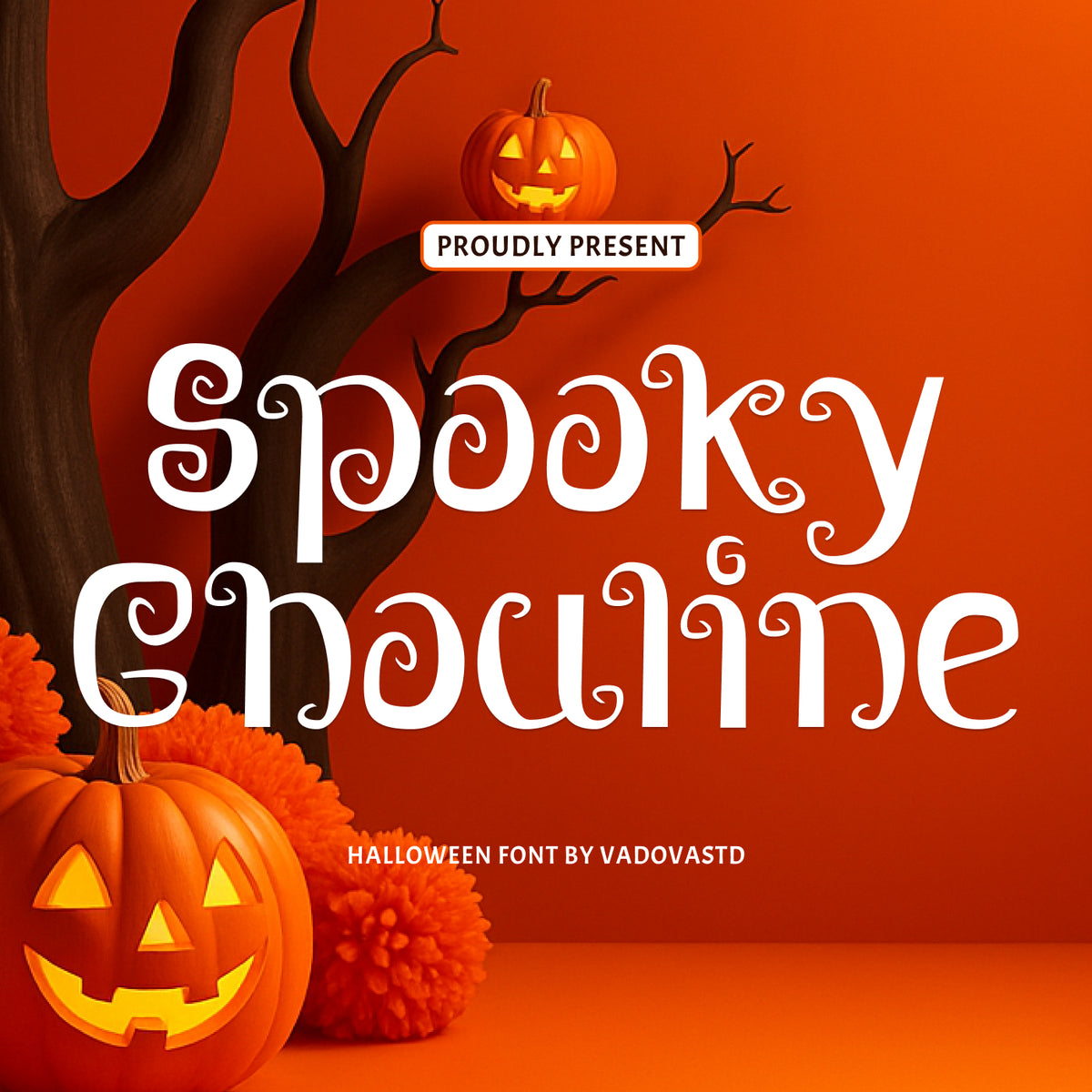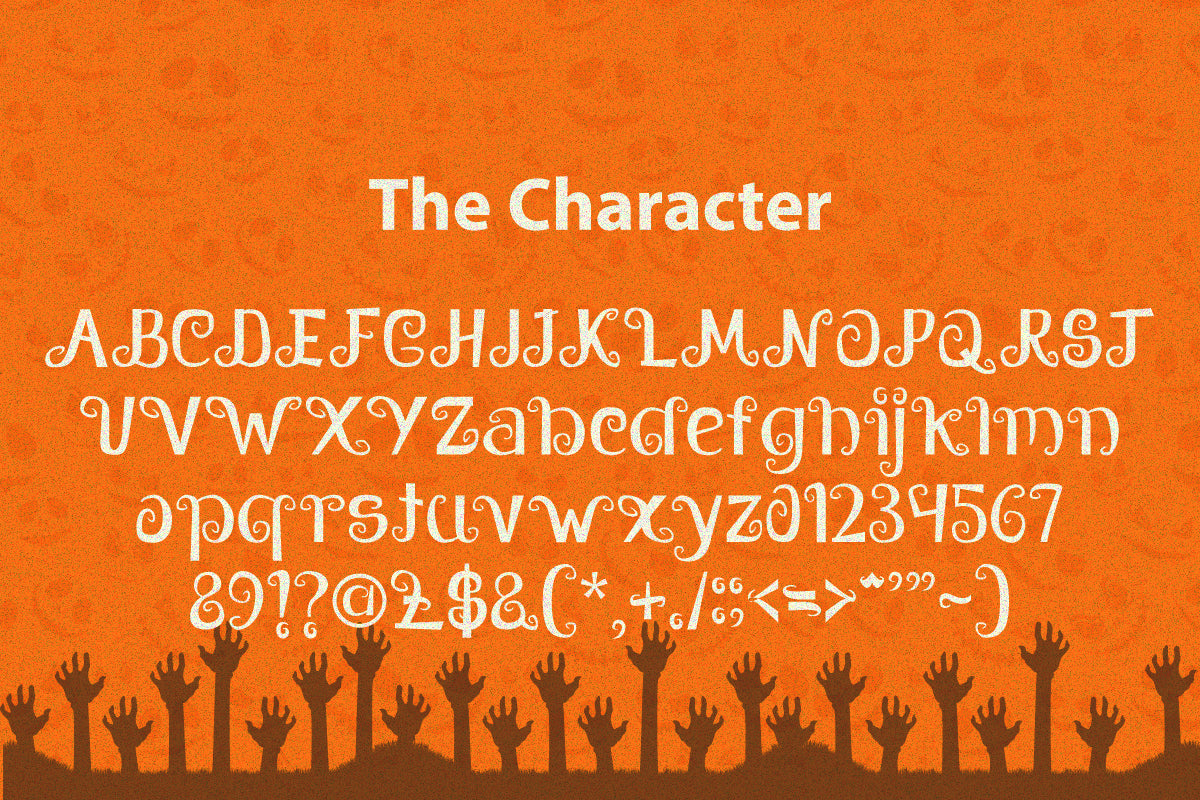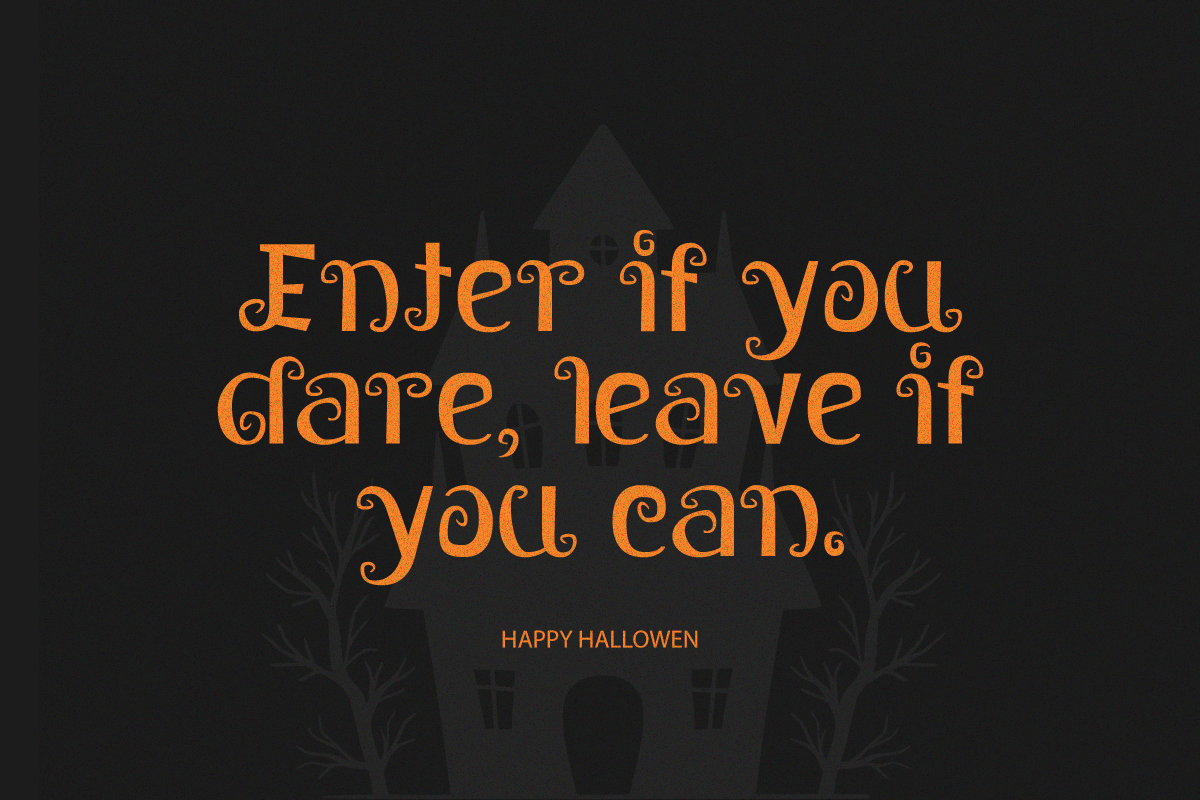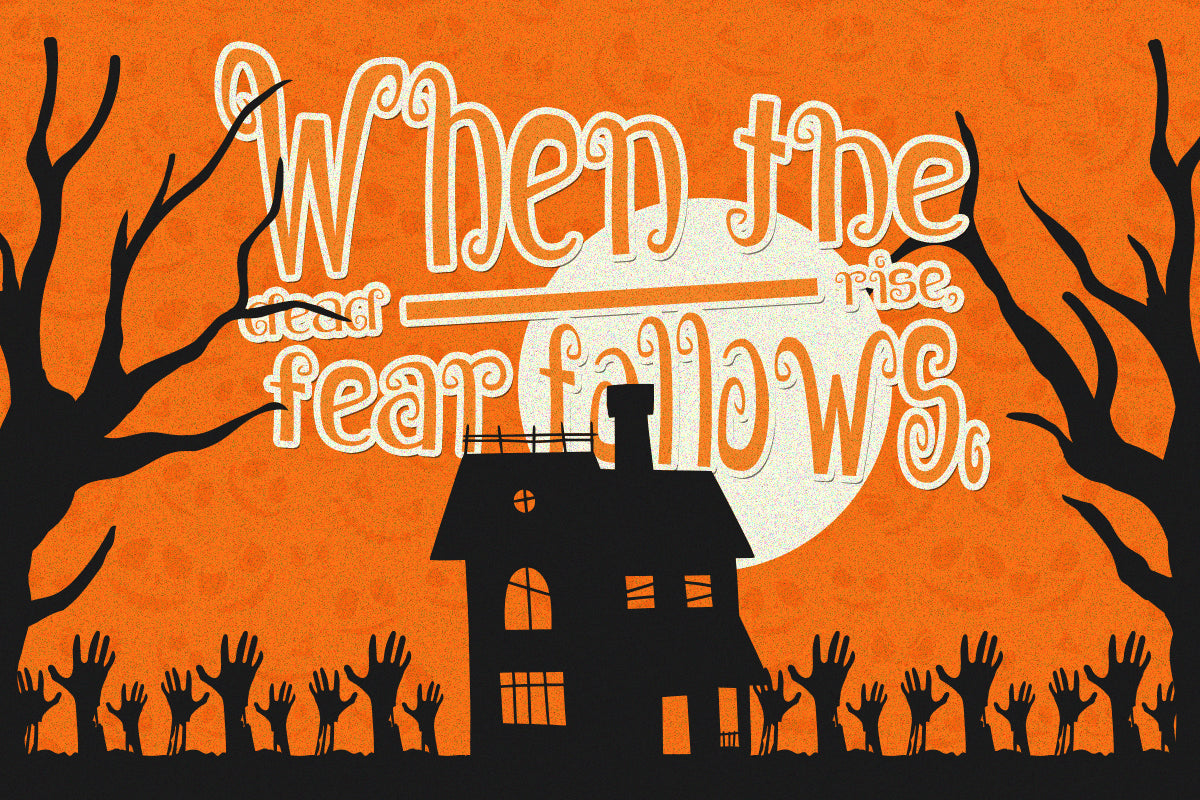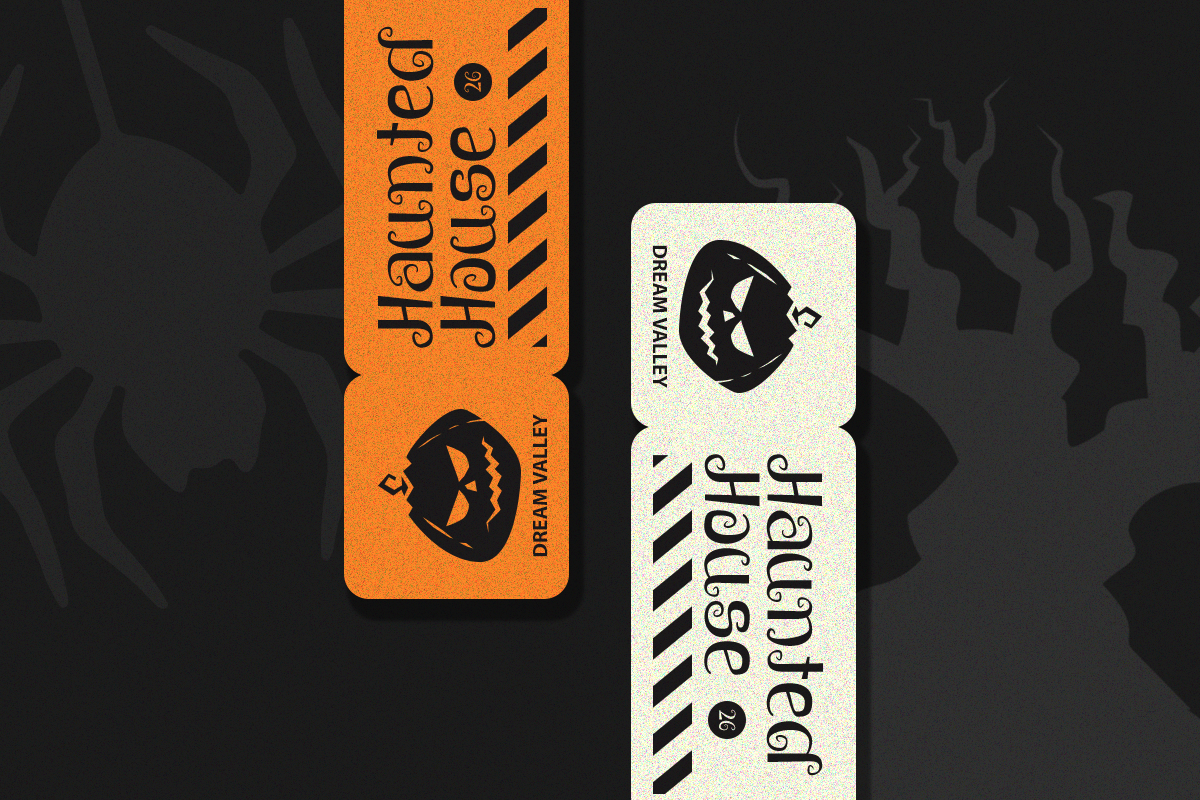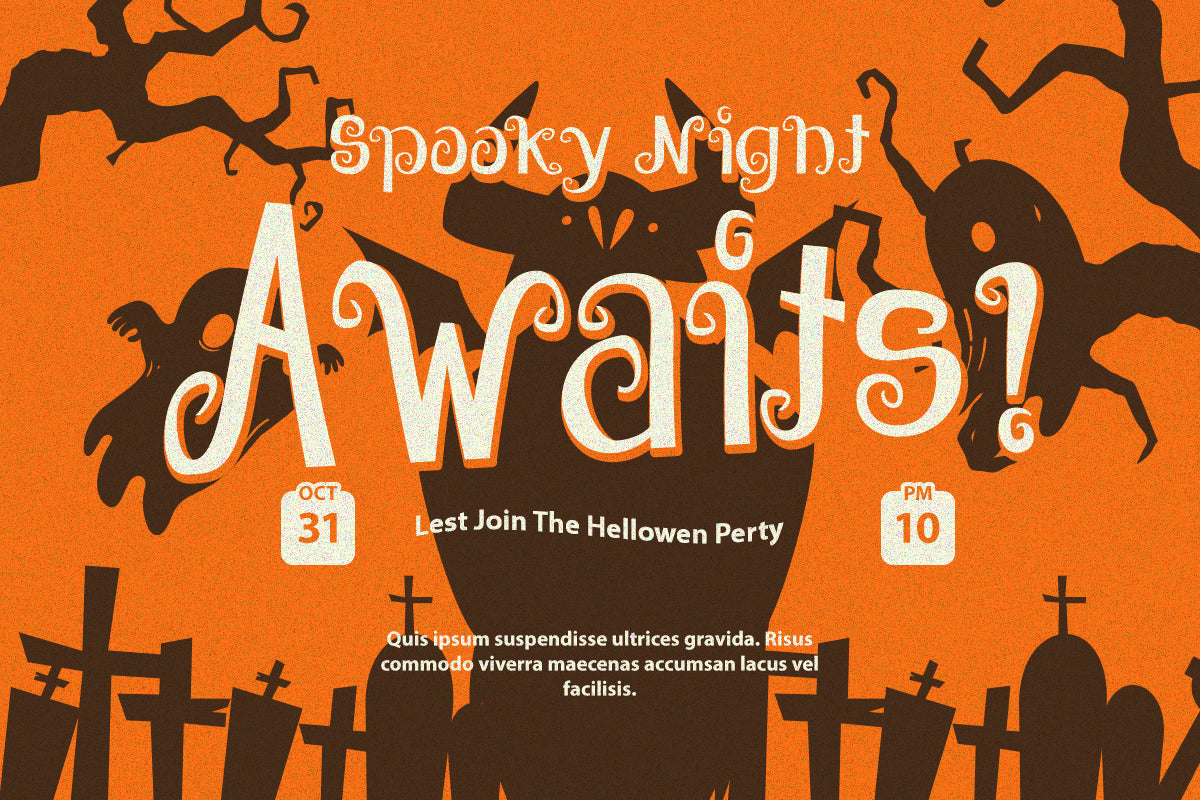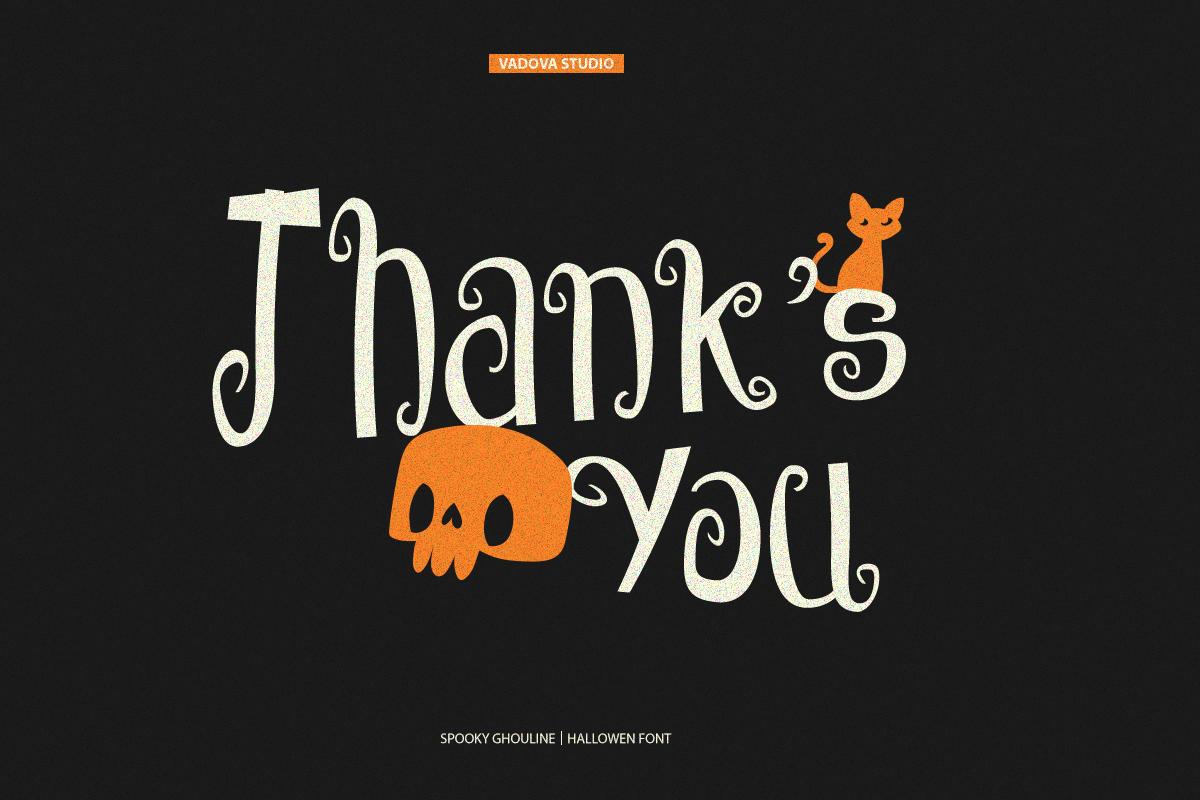
Spooky Ghouline Halloween Font
Spooky Ghouline is a playful Halloween display font featuring curly decorative strokes, whimsical serif details, and spooky ornamental characters inspired by classic horror and festive autumn aesthetics. The typeface includes uppercase, lowercase, numerals, punctuation, with highly stylized swashes that create a fun creepy atmosphere for seasonal typography projects. Designed with bold readability and decorative curves, this font works well for eye-catching titles, party invitations, horror branding, themed merchandise, and creative social media graphics.
Relevance & Use Cases is highly relevant for Halloween-themed creative projects, seasonal branding, horror promotions, festive packaging, social media content, and decorative typography designs. The playful spooky appearance makes it effective for party invitations, haunted house posters, trick-or-treat graphics, stickers, greeting cards, event flyers, children’s Halloween projects, and themed merchandise requiring a fun yet eerie visual atmosphere.
Spooky Ghouline is a Halloween display font featuring curly decorative strokes, serif details, and ornamental swash characters, including uppercase, lowercase, numerals, and punctuation. It is available in TTF, OTF, and WOFF formats.